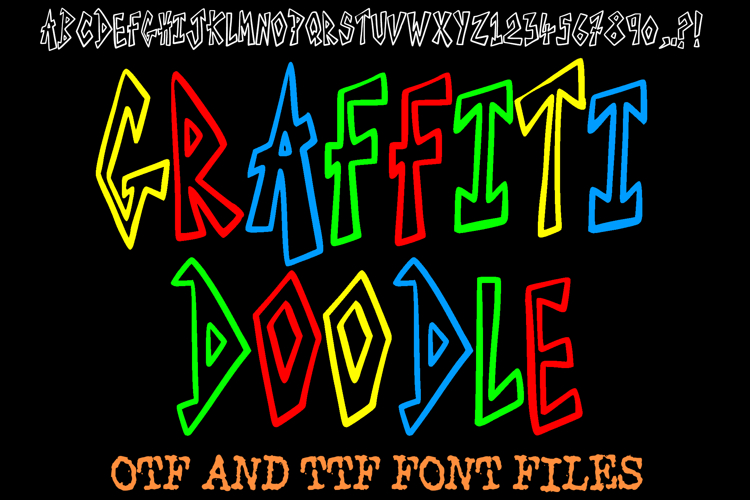
Graffiti Doodle Cartoon Alphabet Lettering ABC Text Font OTF
Bring street vibes to your designs with this graffiti-inspired display font! Featuring sharp edges, bold outlines, and an edgy urban aesthetic, this font is perfect for posters, logos, album covers, t-shirts, stickers, event flyers, and digital art. The hand-drawn look gives it an authentic street art feel, making your projects stand out with attitude and creativity.
This font includes A–Z uppercase letters, numbers 0–9, and punctuation for versatile use in any design project. Whether you’re working on hip-hop graphics, skateboard branding, or vibrant social media content, this graffiti font adds a raw and energetic touch.